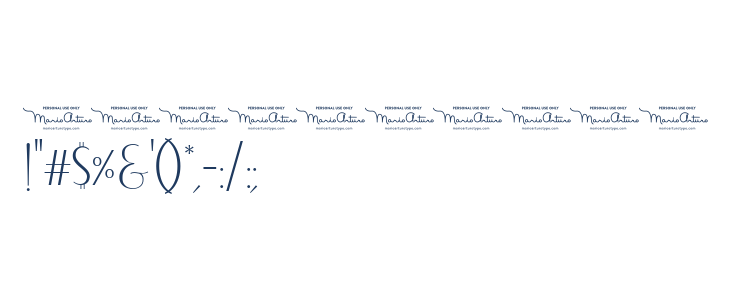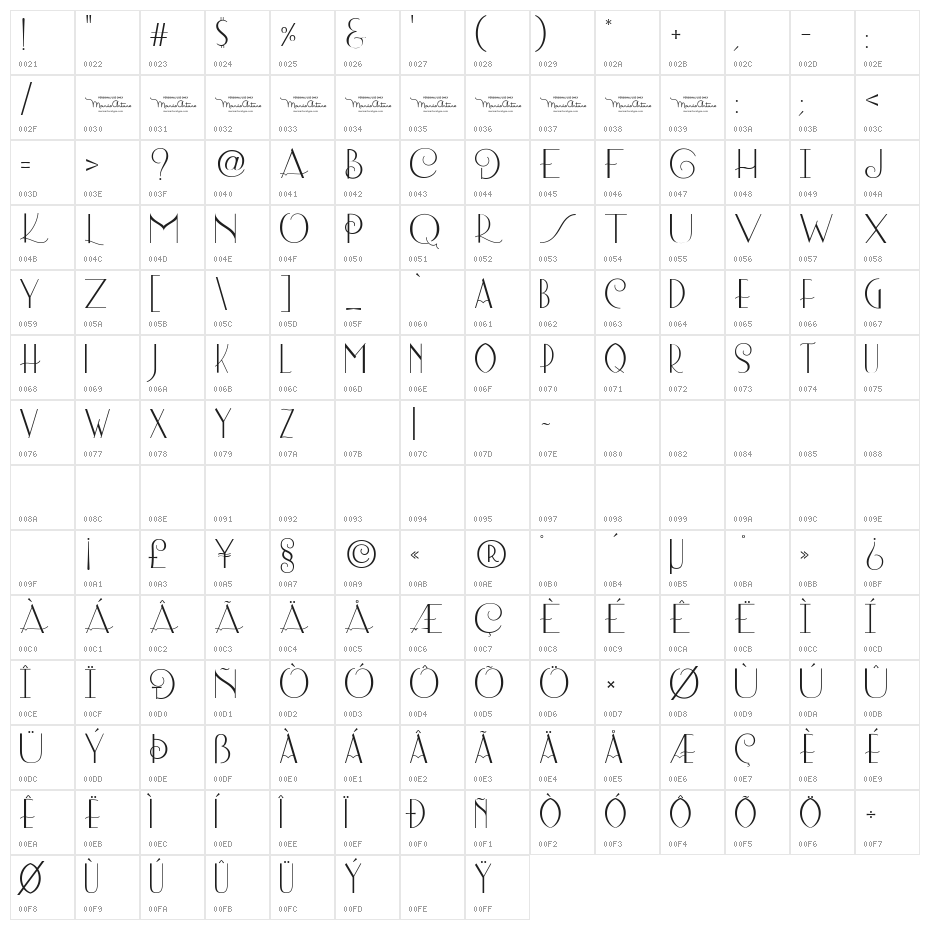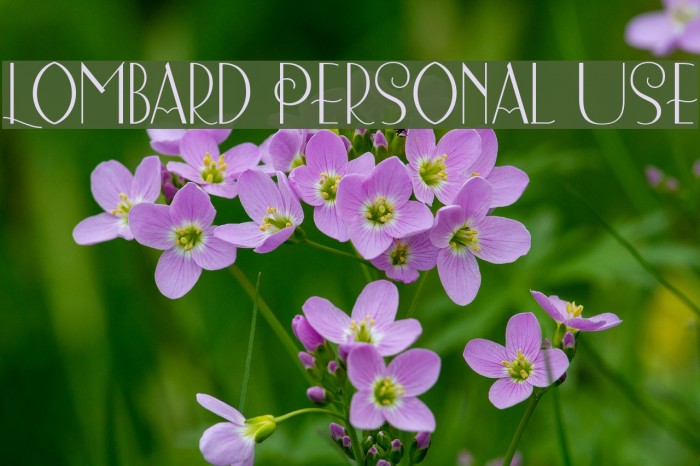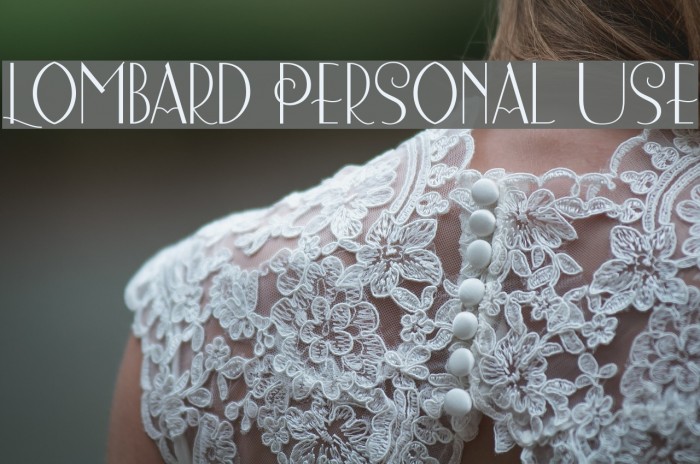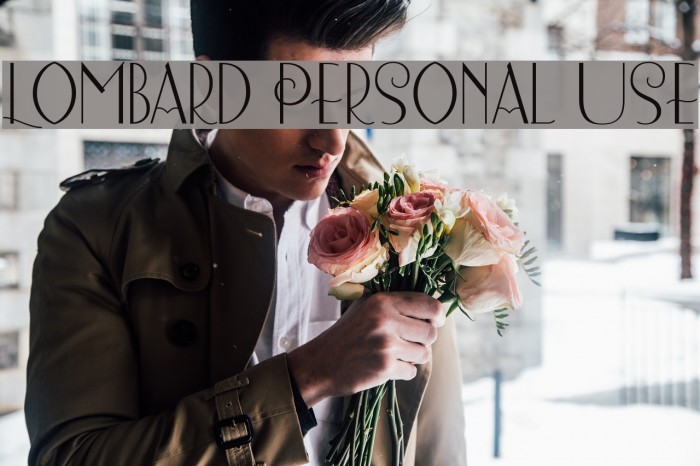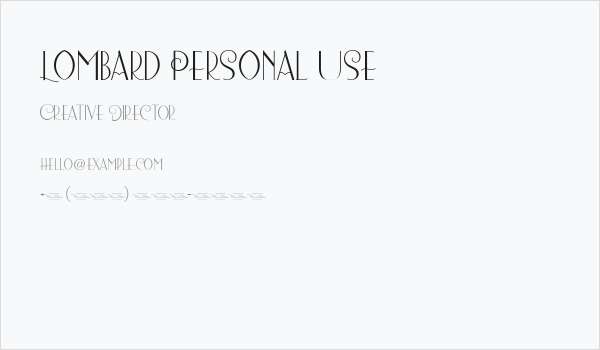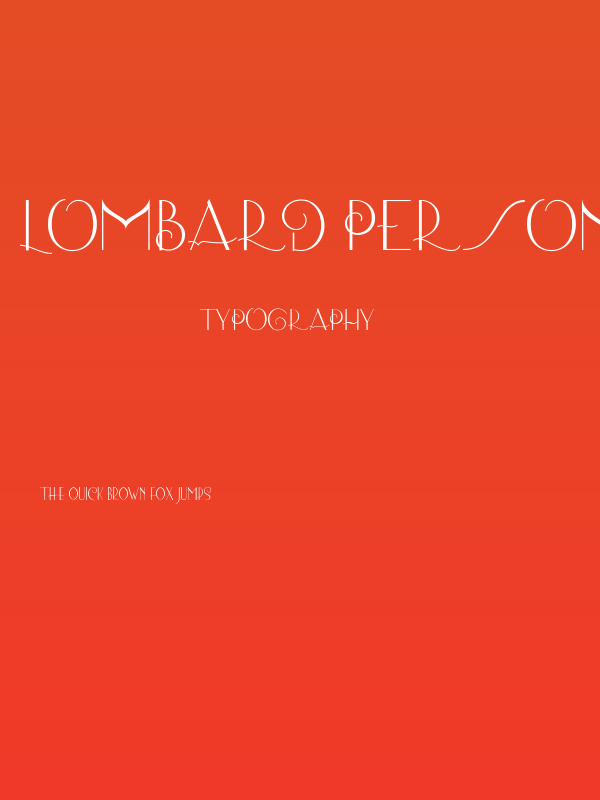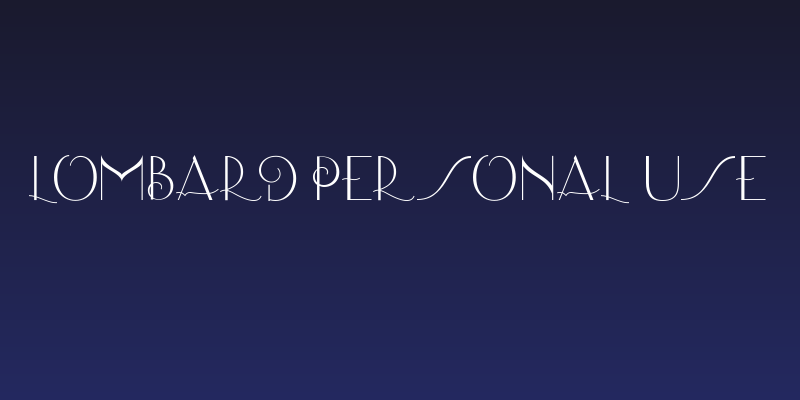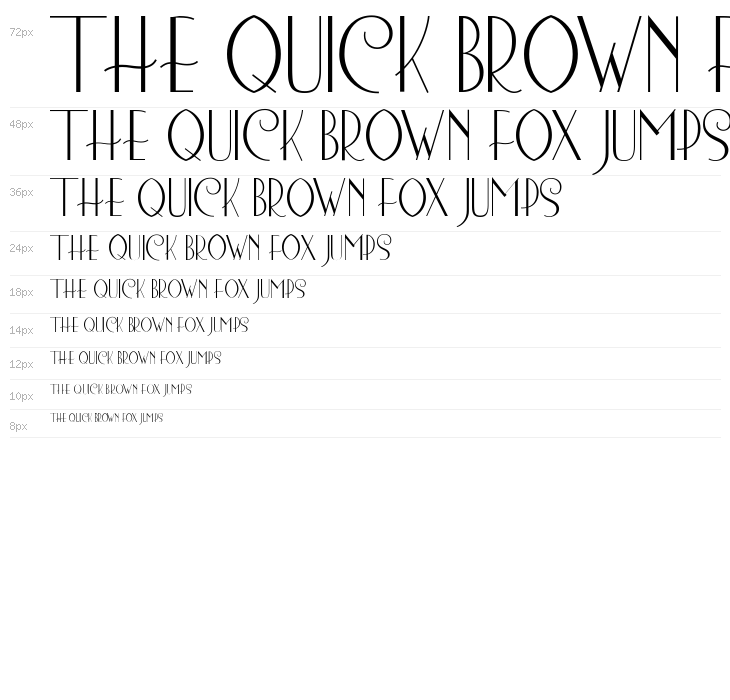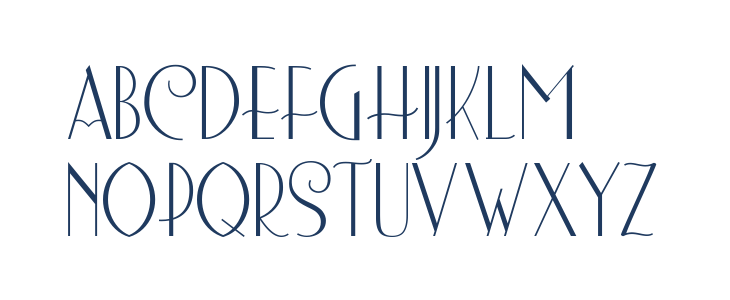
Lombard Personal Use Font
Lombard Personal Use Description
This font features a unique blend of elegance and modernity, characterized by its thin, elongated strokes and subtle curves. The uppercase letters exhibit a distinct flair with decorative elements, particularly noticeable in the letters C, G, and Q, which have a graceful, swirling design. The lowercase letters maintain a consistent style, offering a harmonious balance with the uppercase. Numerals are designed with a similar aesthetic, providing a cohesive look across all characters. The special characters are thoughtfully crafted, ensuring they complement the overall style. This font's artistic design makes it suitable for creative and expressive projects.
| Proposed Projects | Ideal for wedding invitations, luxury branding, artistic posters, and editorial design. |